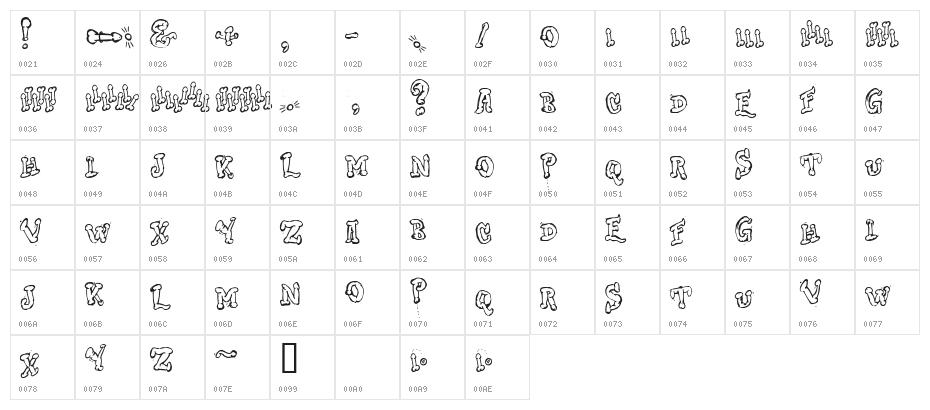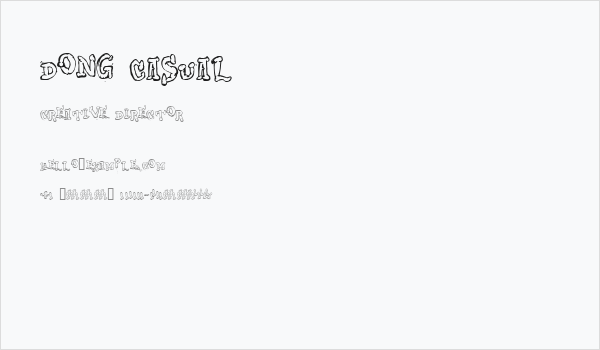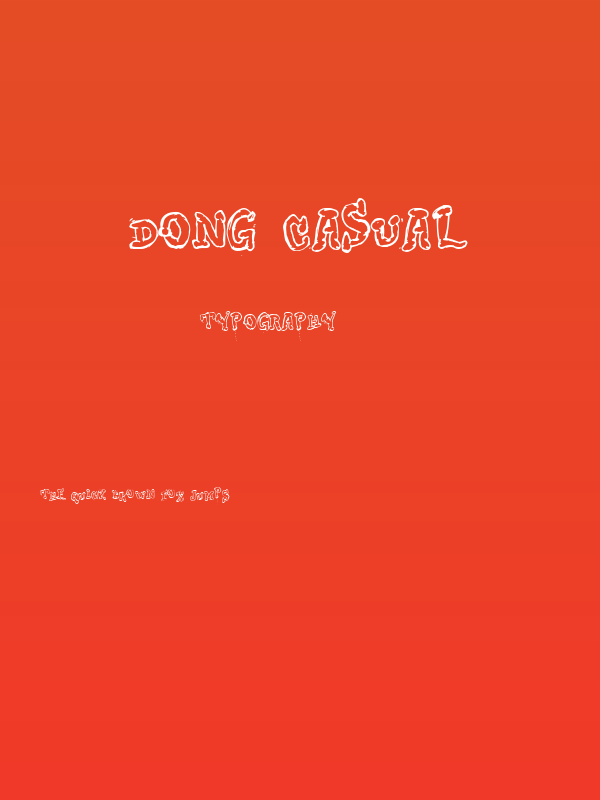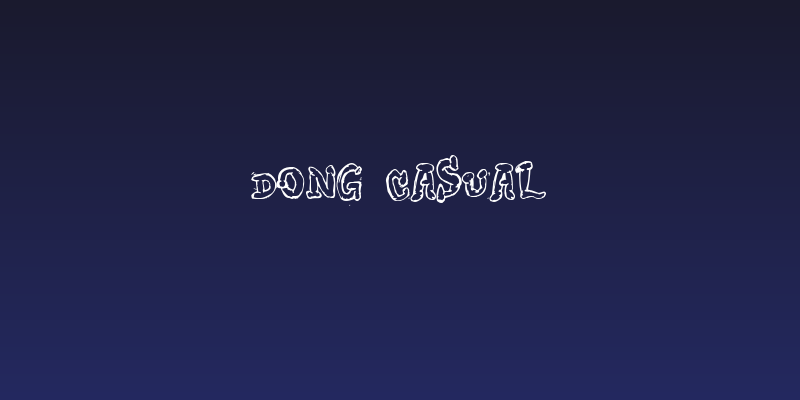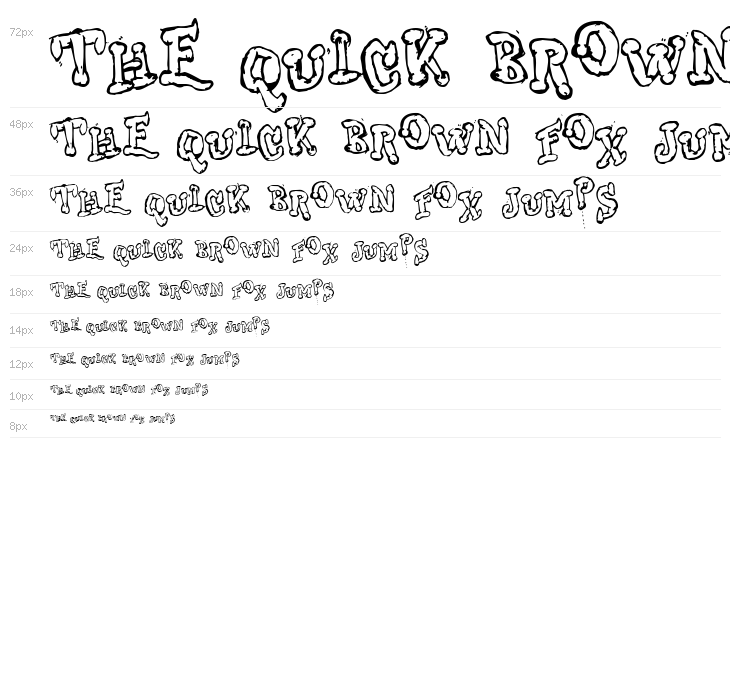
Dong Casual Font
Dong Casual Description
This font features a playful and whimsical design, characterized by its bold, irregular strokes and casual, hand-drawn appearance. The letters have a cartoonish quality, with exaggerated curves and uneven lines that give them a lively and dynamic feel. The font includes both uppercase and lowercase letters, numbers, and a selection of special characters. Its unique style makes it stand out, with a slightly rough texture that adds to its charm. The overall look is informal and fun, making it suitable for creative and lighthearted projects.
| Overall Style | Whimsical, Playful |
| Proposed Projects | Ideal for children's books, comic strips, playful branding, and creative posters. |